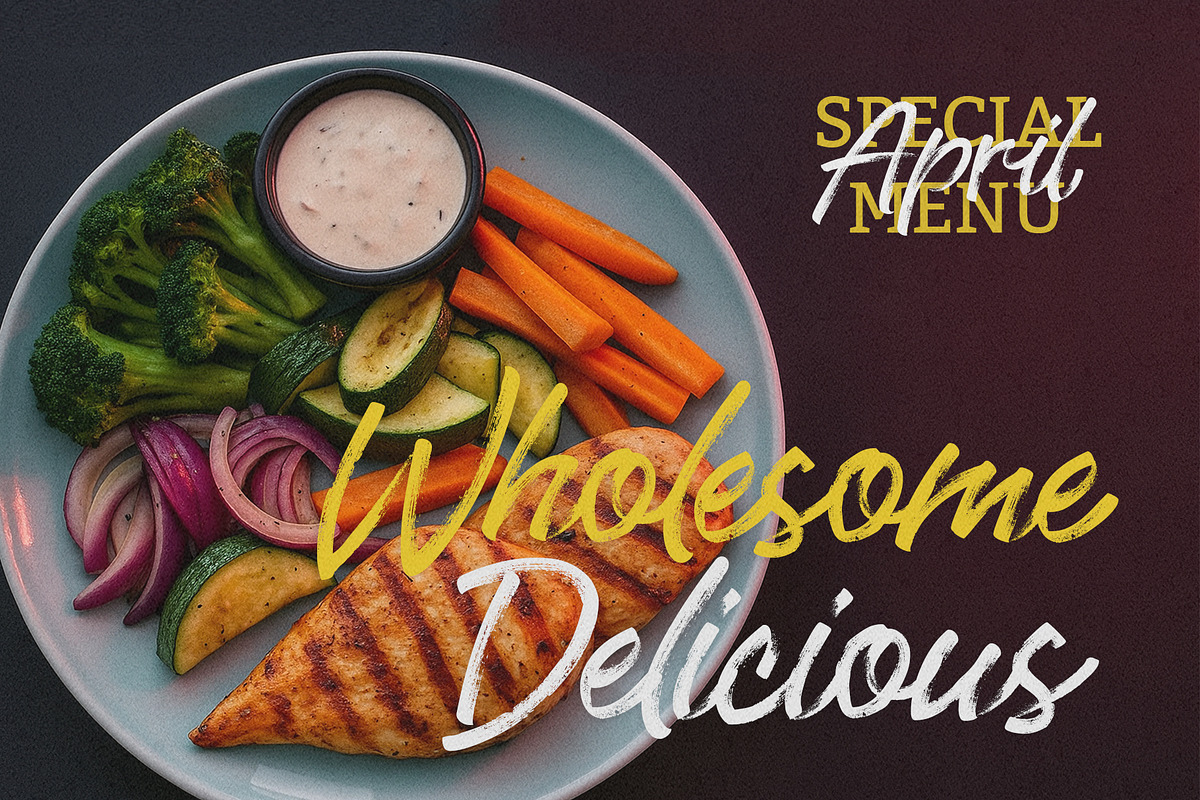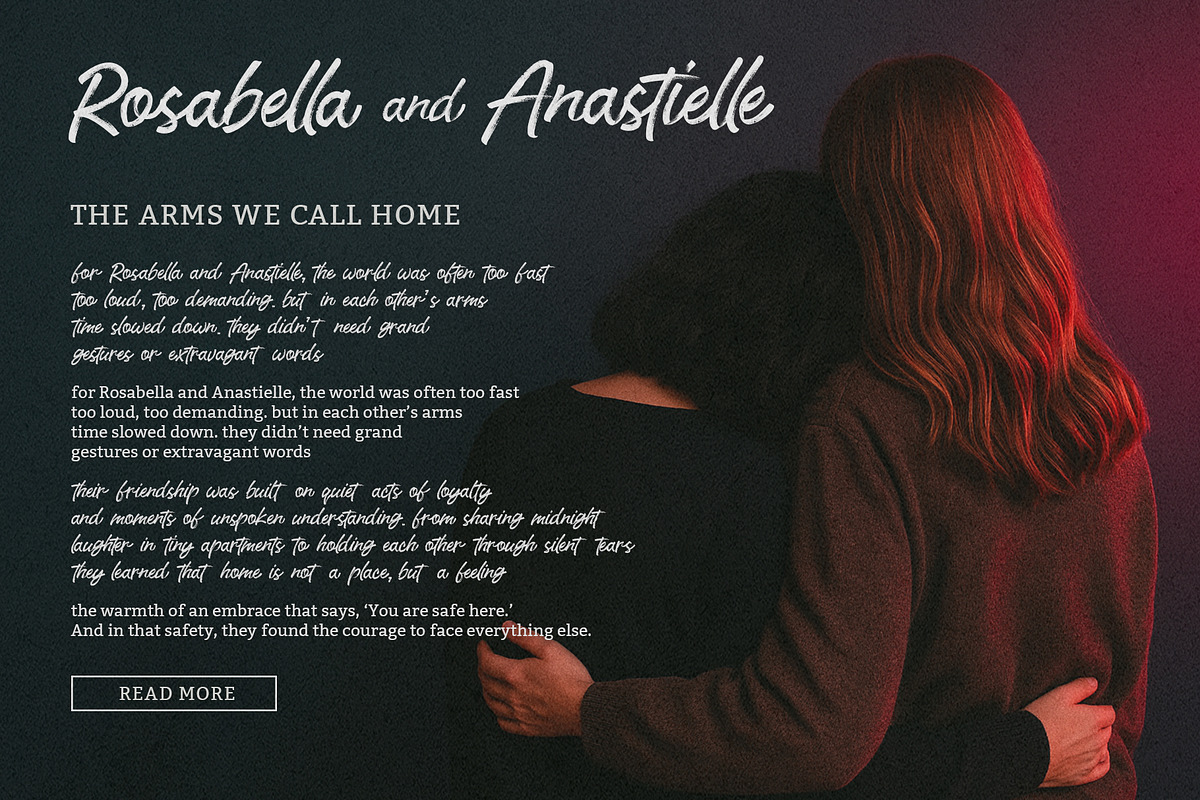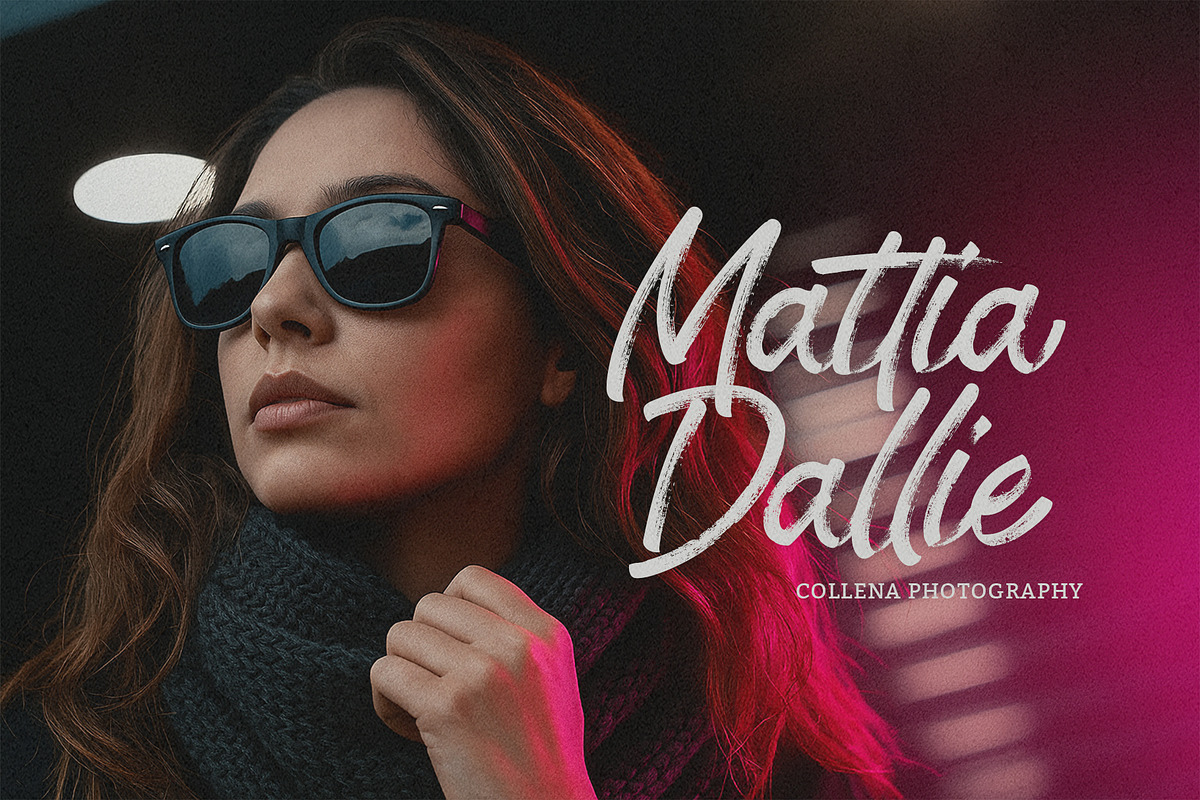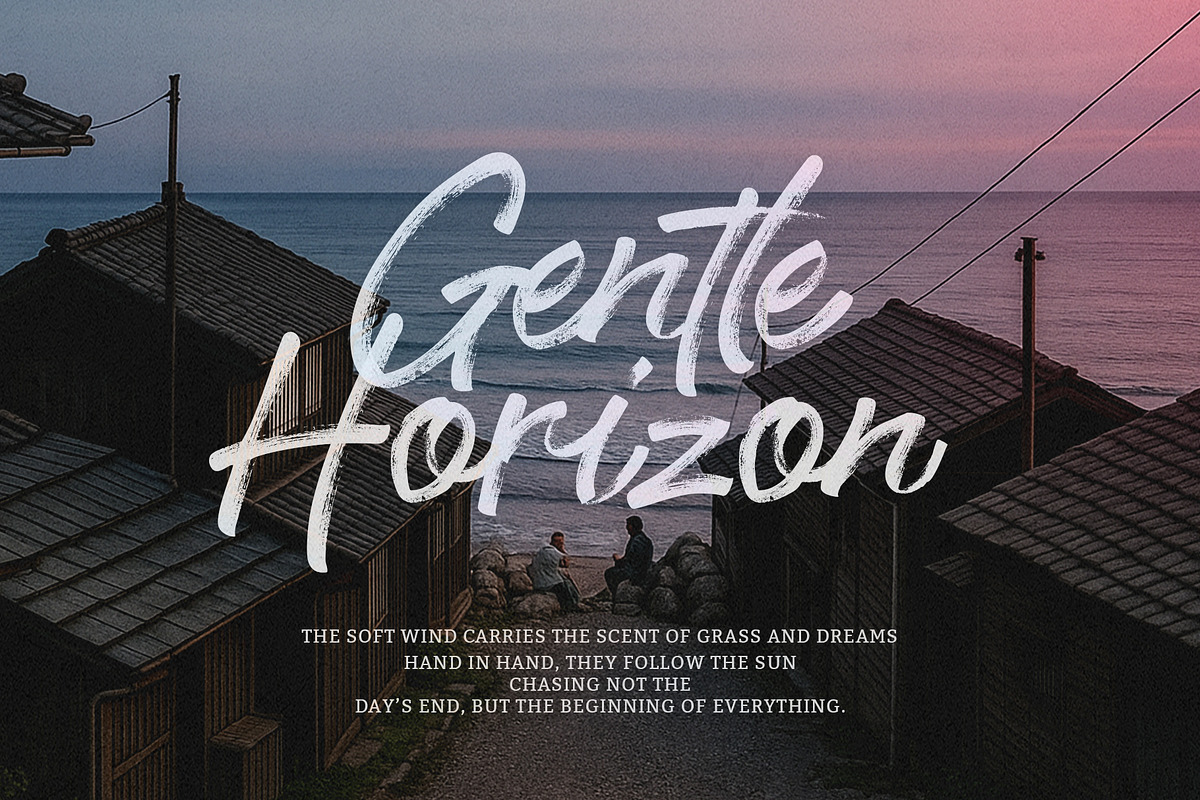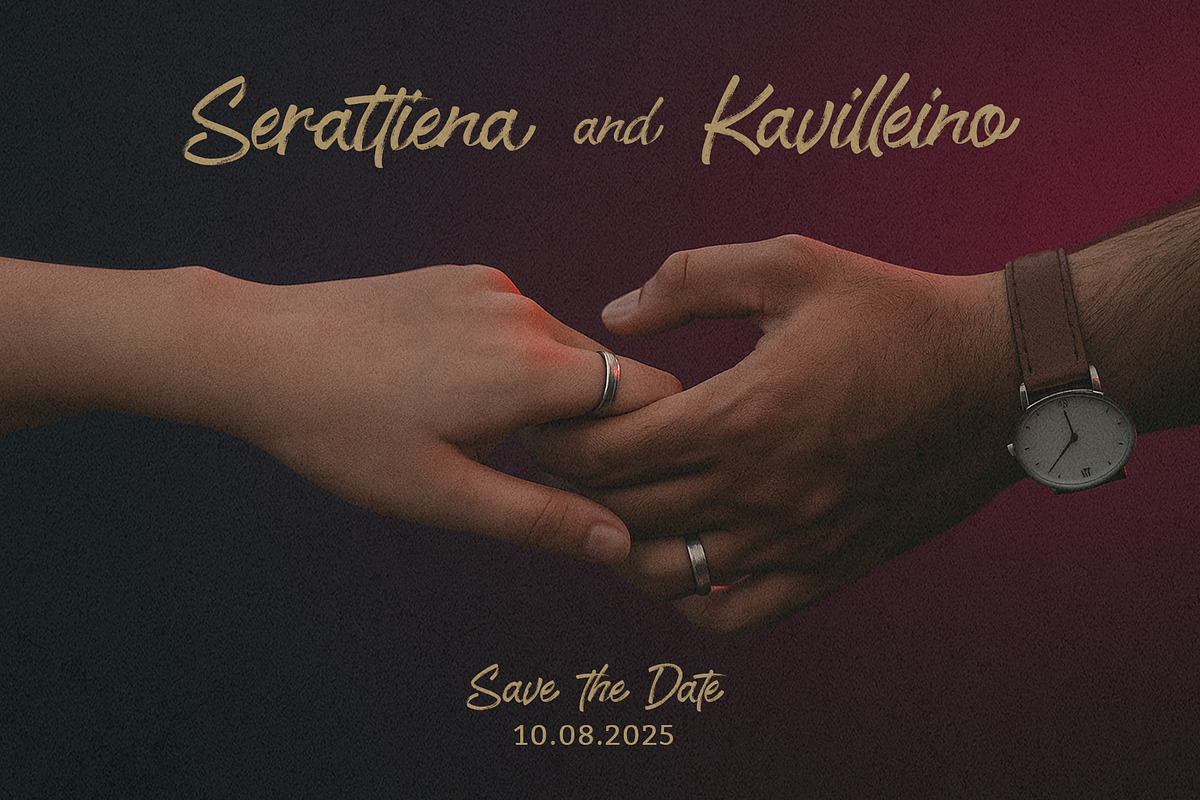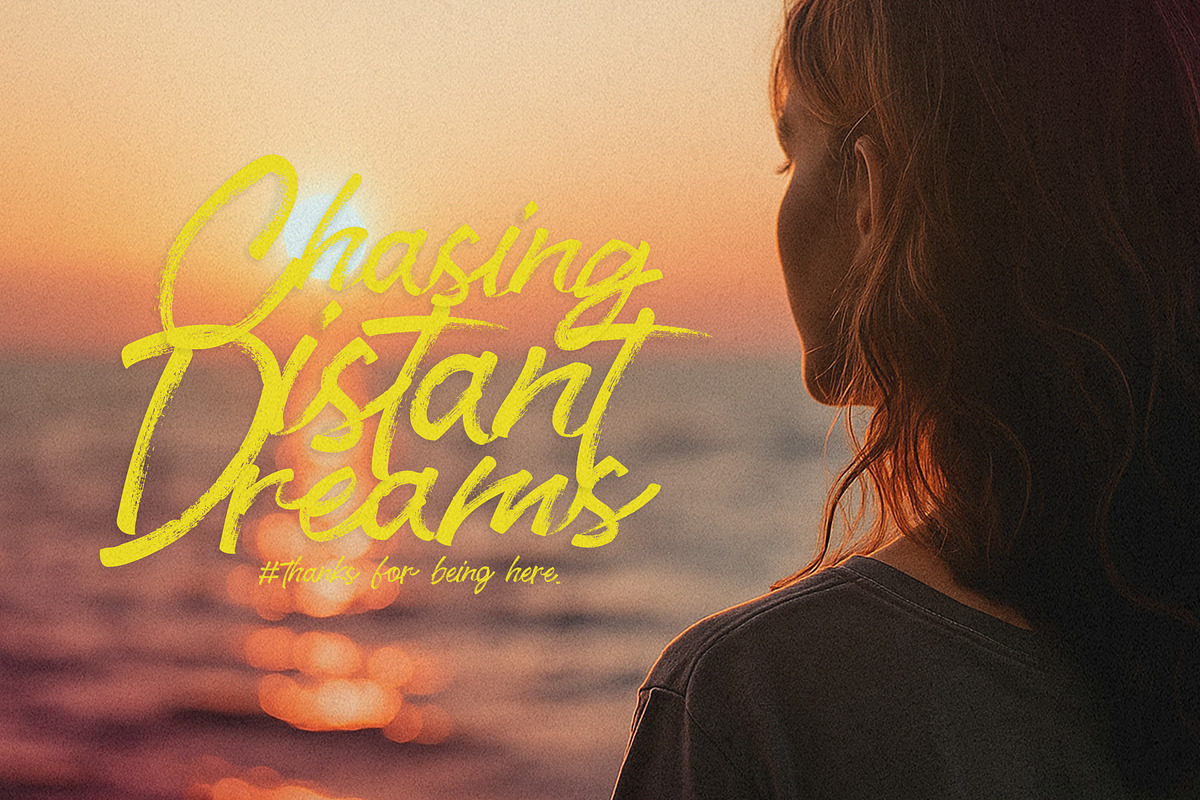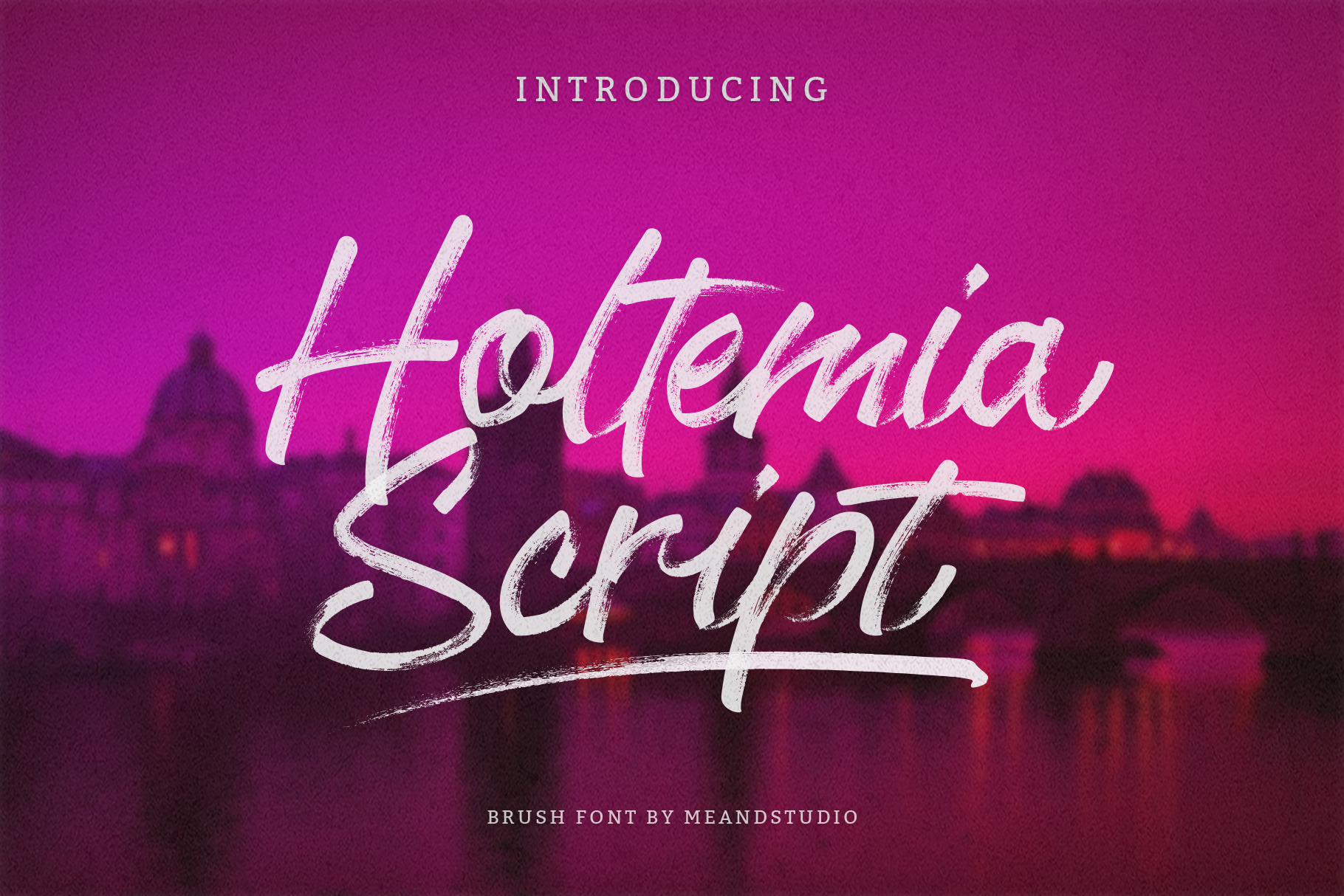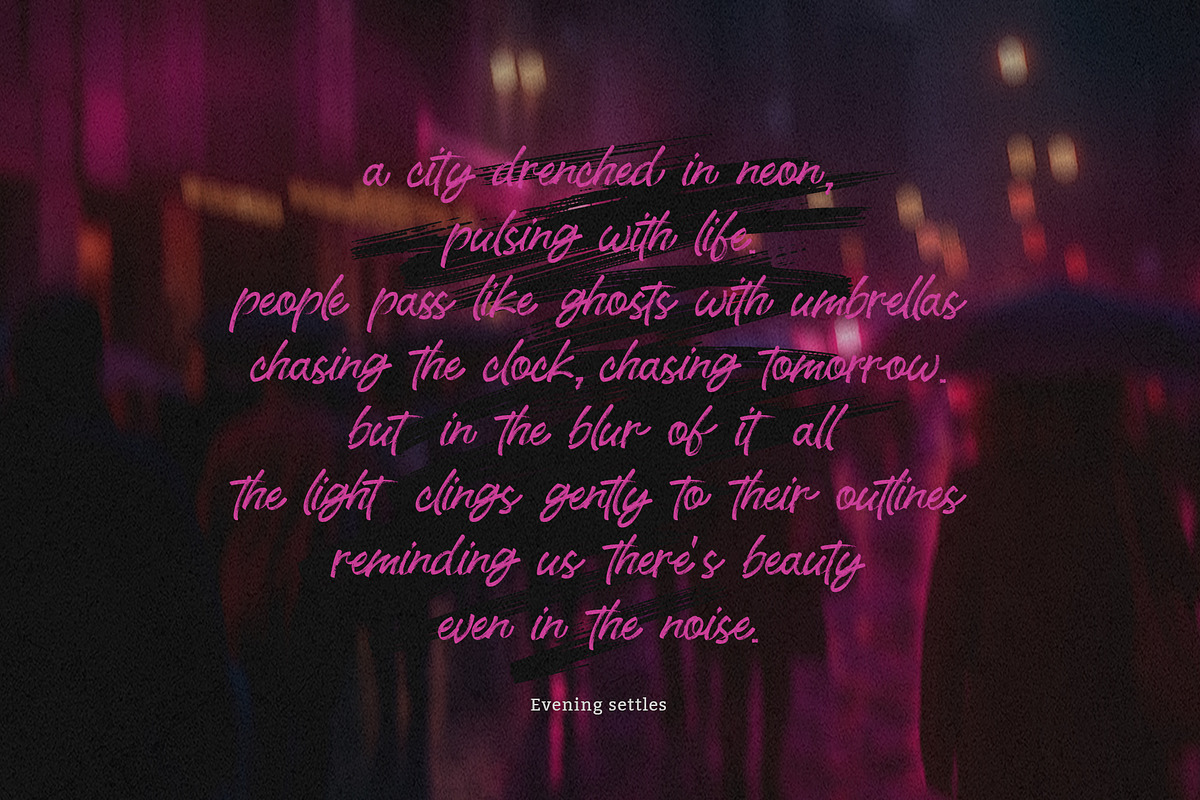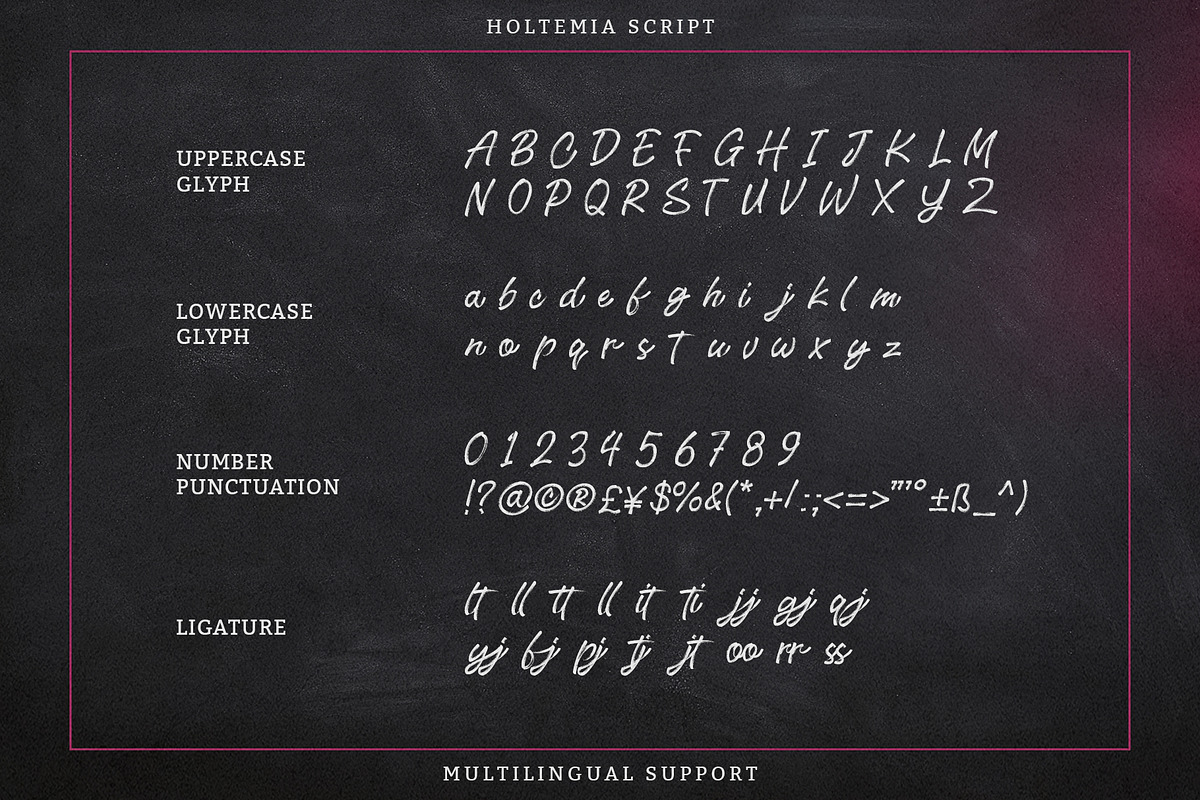
Holtemia Script – Brush Script font
Holtemia Script Modern Brush Script Font, is a modern brush script font crafted to bring a vibrant, artistic feel to your designs. With its natural brush strokes, dynamic curves, and hand-painted texture, Holtemia Script adds energy and personality to any project.
Perfect for branding, social media posts, wedding invitations, restaurant menus, packaging, album covers, and editorial designs, this font delivers both elegance and boldness. It includes uppercase and lowercase letters, numbers, punctuation, multilingual support, and stylish ligatures to give you complete creative flexibility.
Whether you’re creating a modern lifestyle brand, a cozy café menu, or a cinematic poster, Holtemia Script ensures your text makes a lasting impression.
Uppercase & lowercase letters